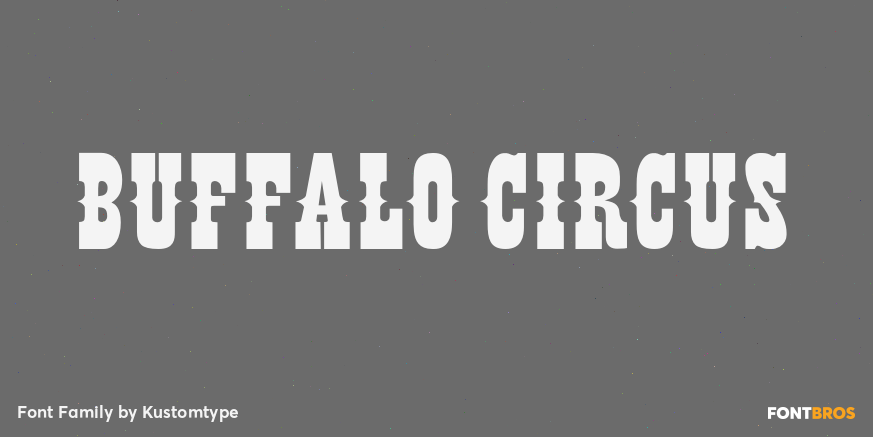
Buffalo Circus
About Buffalo Circus
Frederick Cody, as known as Buffalo Bill, and his renowned travelling Western Circus are now celebrated through the creation of the Buffalo Circus and the Buffalo Western type fonts, both developed quite in the spirit of the stirring wood type fonts from…